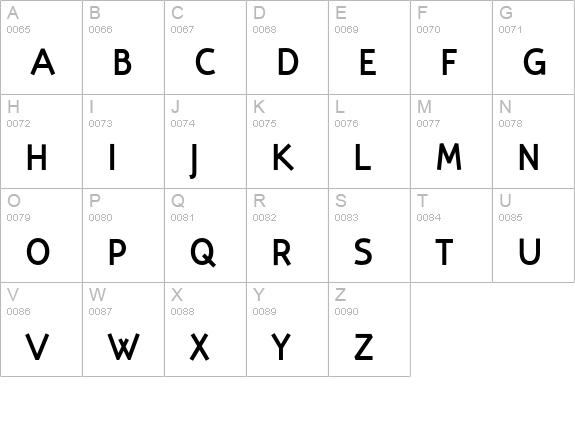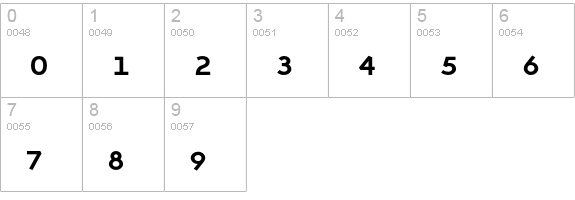
Torus Demi SC Font Details
Torus Demi SC is a sub-bold, structured variant in the Torus typeface family \xE2\x80\x94 well suited to sub-headlines and emphasised passages.
Introducing Torus Demi SC, a stunning and versatile font that effortlessly captures attention with its unique combination of elegance and modernity. This font is specially designed to add a touch of sophistication to your projects, whether you're creating stunning logos, eye-catching headlines, or stylish branding materials. With its sleek and clean lines, Torus Demi SC exudes a sense of professionalism and refinement. Its carefully crafted letterforms ensure legibility and clarity, making it perfect for both print and digital designs. Whether used in large or small sizes, this font maintains its distinctive appeal, leaving a lasting impression on your audience. One of the standout features of Torus Demi SC is its exceptional versatility. It seamlessly adapts to various design styles and contexts, effortlessly enhancing any project it is used in. Whether you're going for a minimalist and modern aesthetic or a more traditional and classic look, Torus Demi SC delivers, ensuring your message is conveyed with the utmost impact. Best of all, Torus Demi SC is available for free download at FontsMarket.com. This means that you can harness the power of this exceptional font without breaking the bank. Whether you're a professional designer or an aspiring creative, Torus Demi SC provides you with the tools to bring your vision to life. So why wait? Elevate your designs with the elegance and versatility of Torus Demi SC. Download this remarkable font today at FontsMarket.com and unlock a world of possibilities for your creative endeavors.